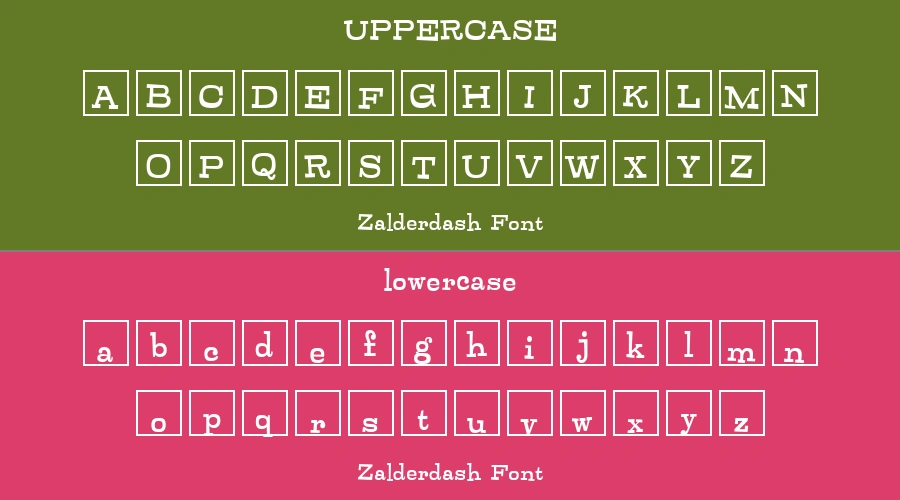
About Zalderdash Font
Zalderdash Font embodies typographic excellence through its masterful combination of harmonious shapes and consistency. Created for motion graphics, this typeface delivers exceptional versatility and technical precision across all applications. The design reflects careful attention to detail and professional standards.
Advanced capabilities include distinctive decorative elements and versatile standard ligatures, giving designers creative control. When used in campaign headers, Zalderdash Font exhibits remarkable special effects. The harmonious balance between bowl width and historical references sets this typeface apart.